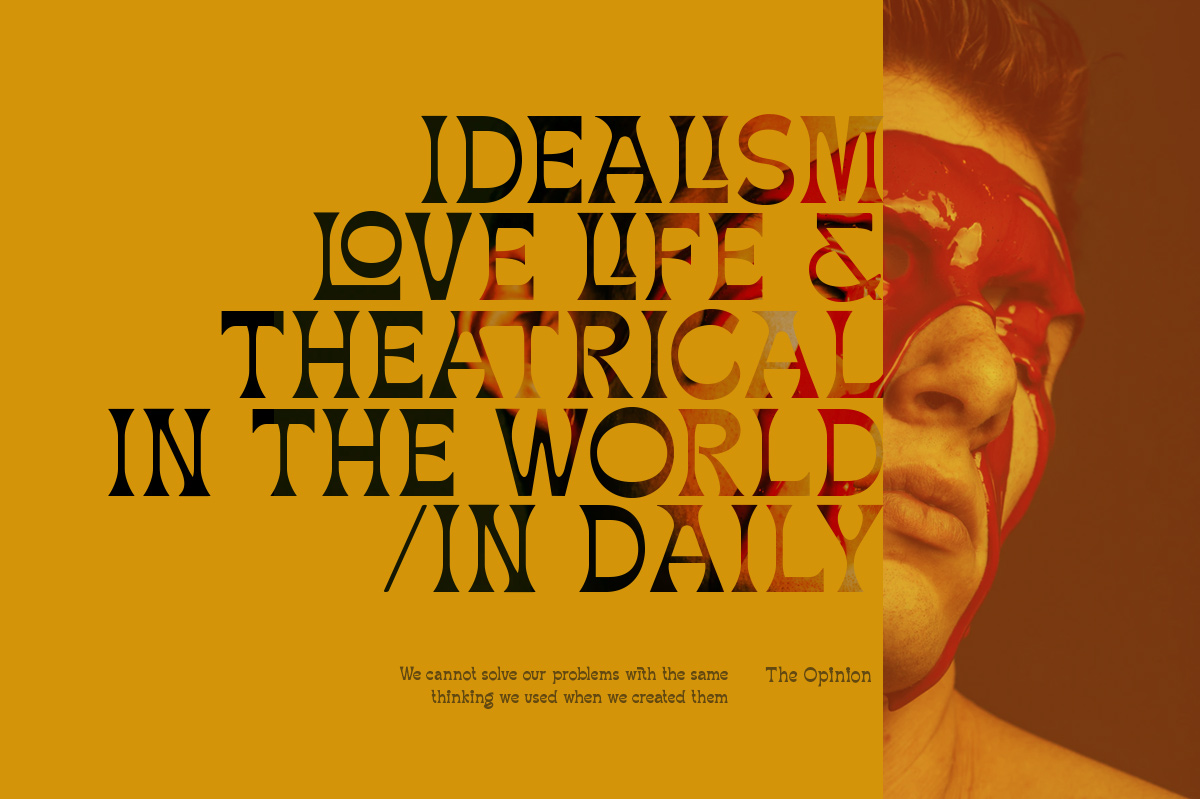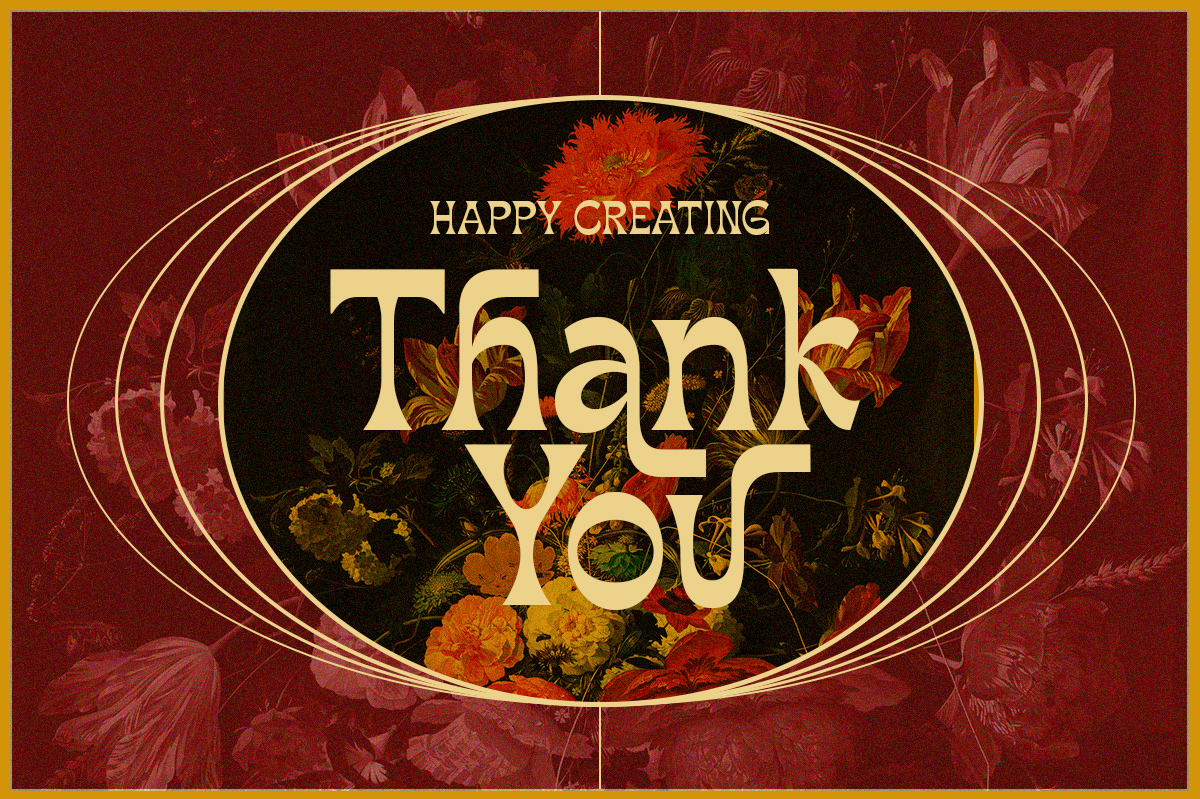
Introducing our latest display typeface named Neophyte Typeface. A reverse contrast serif with classy and classic look with vintage feel, inspired by 60s and 70s signages. This font perfectly made to be applied especially in logo, and the other various formal forms such as invitations, labels, logos, magazines, books, greeting / wedding cards, packaging, fashion, make up, stationery, novels, labels or any type of advertising purpose.